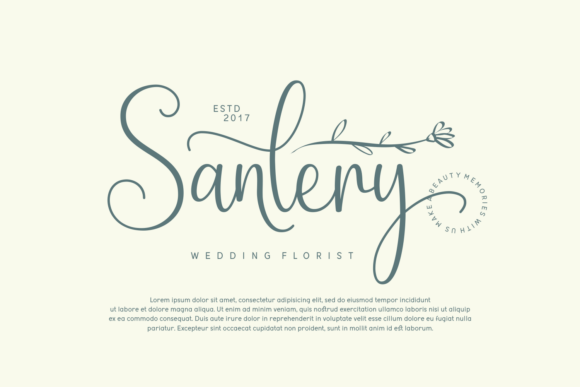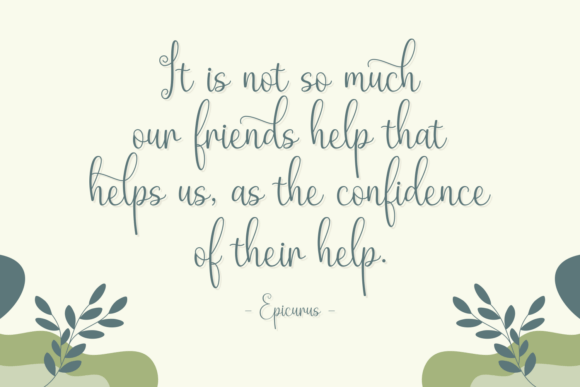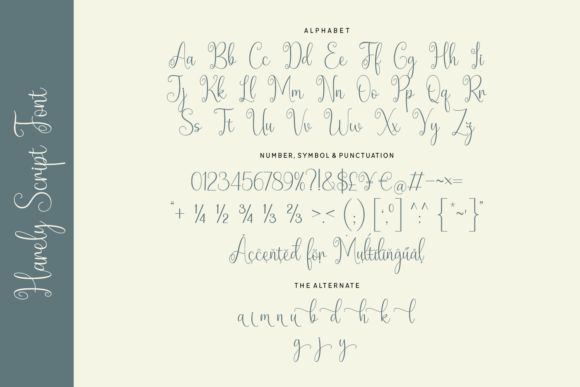
Harely Font: Elevate Your Designs with Elegant Handwritten Style
In the world of typography, few fonts capture the essence of elegance and sophistication as beautifully as the Harely font. This stunning script font is designed to mimic the fluidity and charm of handwritten writing, making it an ideal choice for creative projects that demand a personal touch. Whether you’re a designer looking for the perfect font for your next client’s invitation or a crafter seeking to add a touch of whimsy to your DIY projects, Harely font is sure to impress.
The Characteristics of Harely Font
Harely font is characterized by its soft curves, loops, and stylish letterforms that exude a sense of refinement and poise. The font features:
- Soft Curves: The curves in Harely font are smooth and flowing, creating a sense of movement and fluidity.
- Loops and Swashes: The font features beautiful loops and swashes that add a touch of elegance to the letters.
- Stylish Letterforms: Each letter in Harely font is carefully crafted to be stylish and visually appealing.
These characteristics make Harely font perfect for a variety of creative projects, including:
Perfect Uses for Harely Font
- Invitations: Add a touch of elegance to your wedding invitations, birthday party invites, or baby shower announcements.
- Greeting Cards: Create beautiful and heartfelt greeting cards for special occasions like holidays, anniversaries, or thank-you notes.
- Artistic Projects: Use Harely font to add a personal touch to your artistic projects, such as handmade journals, scrapbooking, or mixed-media art.
Why Designers and Crafters Love Harely Font
Designers and crafters alike adore Harely font for its versatility and aesthetic appeal. Here are some reasons why:
- Elegant and Sophisticated: Harely font adds a touch of elegance and sophistication to any design or project.
- Easy to Read: Despite its ornate nature, Harely font is surprisingly easy to read, making it perfect for both digital and print applications.
- Customizable: Harely font can be customized to fit your project’s needs, allowing you to adjust the size, color, and style to suit your taste.
Tips for Using Harely Font Effectively
To get the most out of Harely font, follow these tips:
- Pair with Simple Fonts: Pair Harely font with simple fonts to create visual interest and balance in your design.
- Use for Headings and Titles: Use Harely font for headings and titles to add a touch of elegance and sophistication.
- Experiment with Colors: Experiment with different colors to find the perfect match for your project.
In conclusion, Harely font is a beautiful and elegant script font that is perfect for designers and crafters looking to add a personal touch to their projects. With its soft curves, loops, and stylish letterforms, Harely font is sure to elevate your designs and make them stand out. Whether you’re creating invitations, greeting cards, or artistic projects, Harely font is a versatile and sophisticated choice that is sure to impress.